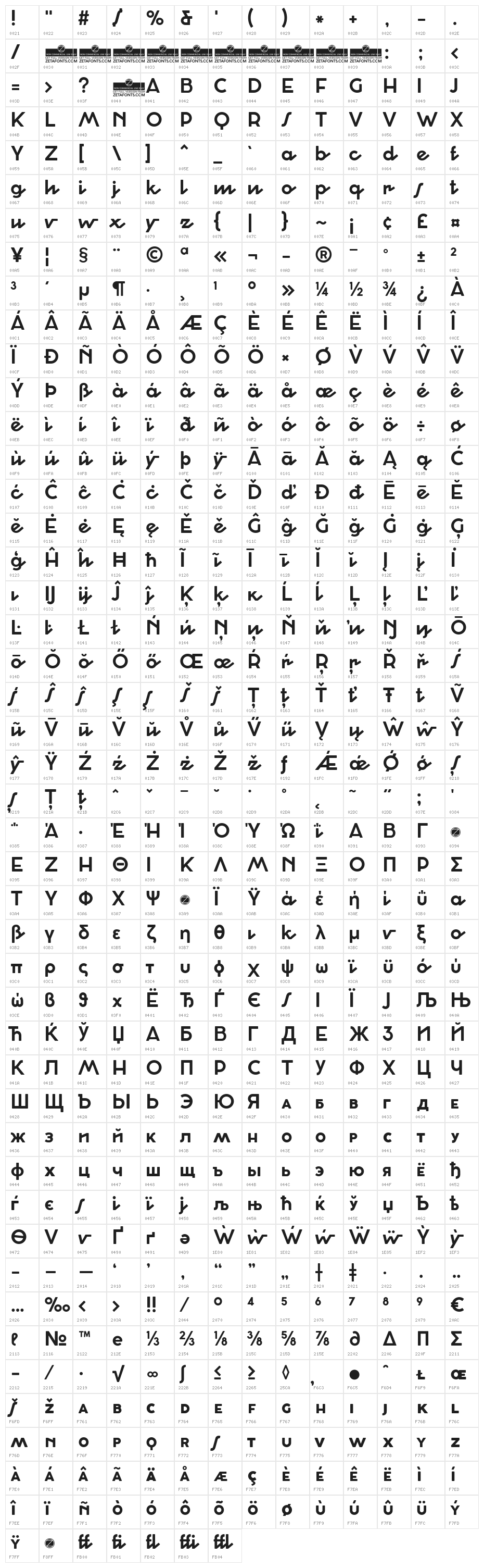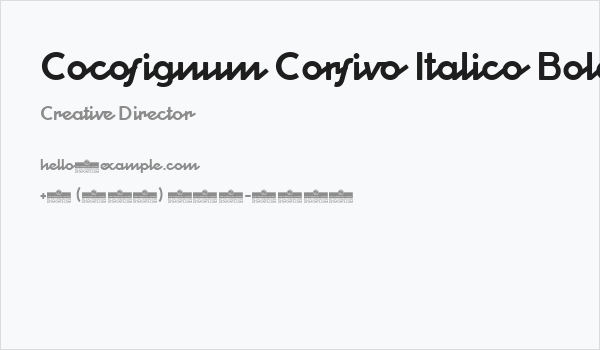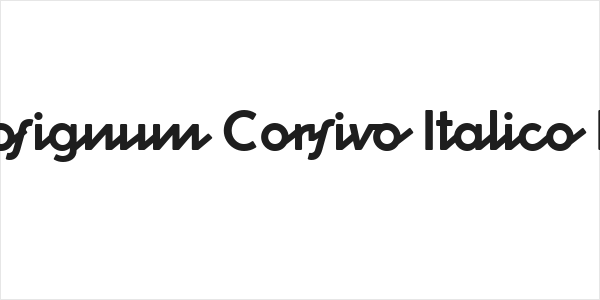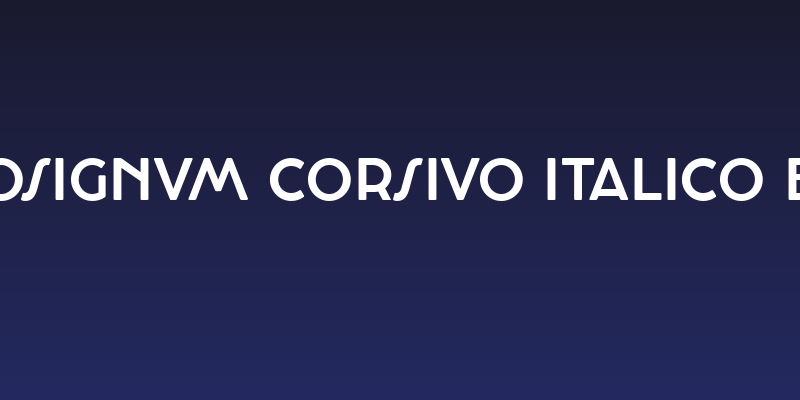
Cocosignum Corsivo Italico Bold Font
Cocosignum Corsivo Italico Bold Description
This font features a bold and dynamic style with a modern twist. The uppercase letters are clean and geometric, providing a strong and assertive presence. The lowercase letters exhibit a cursive flair, adding a touch of elegance and fluidity. The combination of straight lines and smooth curves creates a harmonious balance, making it versatile for various design needs. The numerals and special characters maintain the boldness and clarity, ensuring readability across different applications. Its unique style is suitable for projects that require a blend of modernity and sophistication.
| Proposed Projects | Ideal for branding, advertising, headlines, and editorial design. |